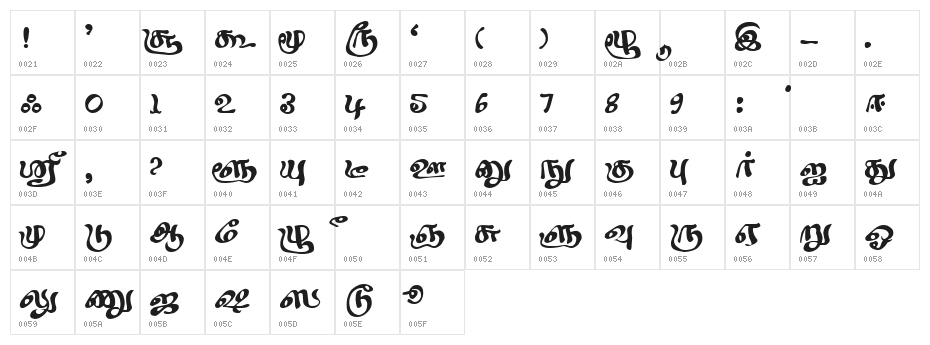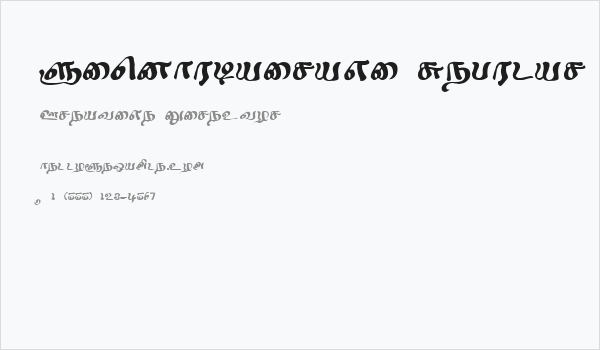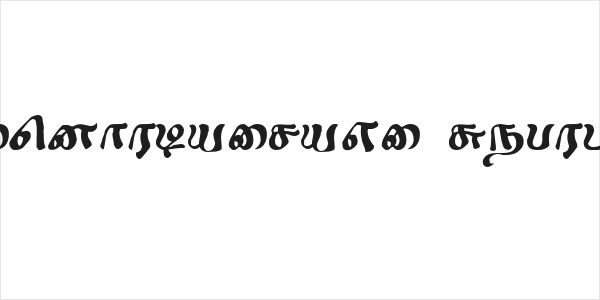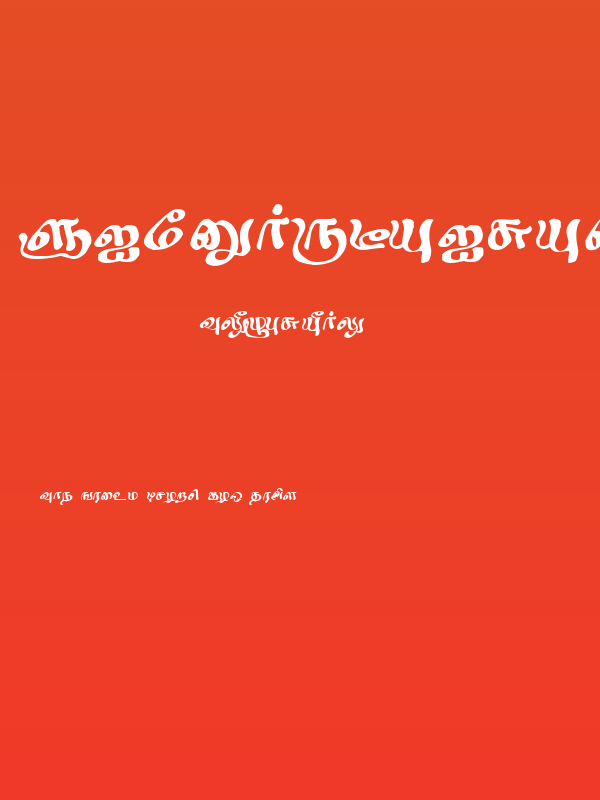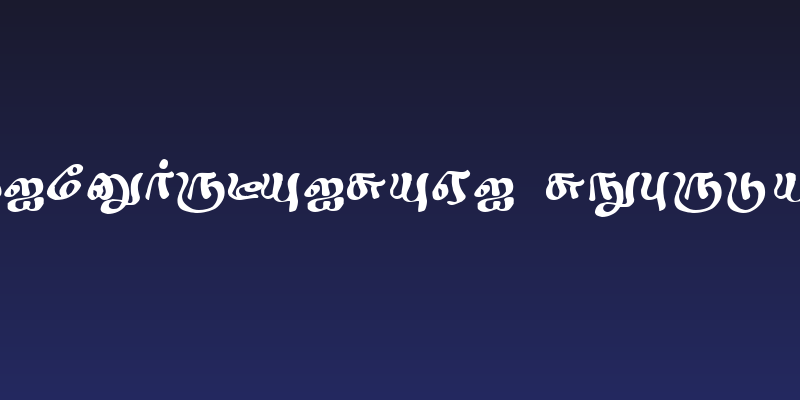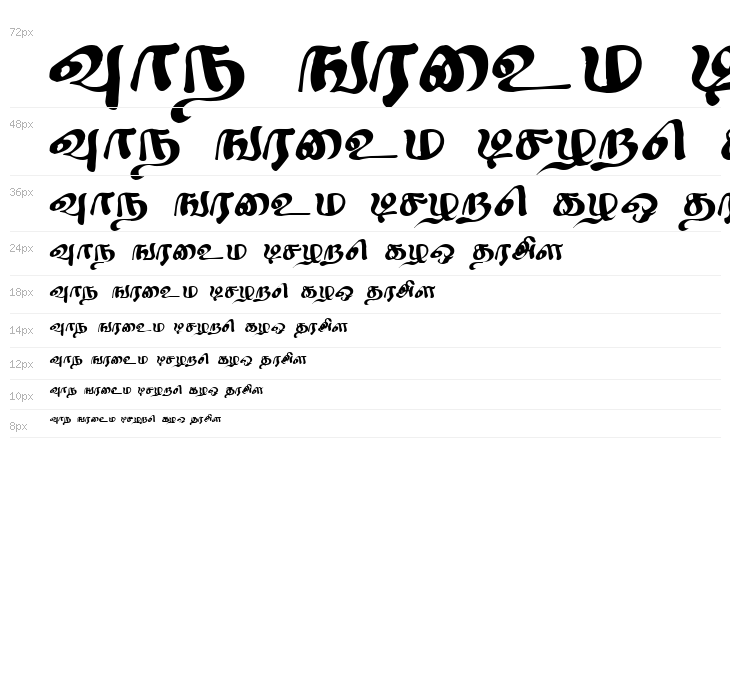
Sindhubairavi Regular Font
Sindhubairavi Regular Description
This font features a unique and artistic design, characterized by its flowing and ornate letterforms. The script-like appearance gives it a traditional and cultural feel, with each character exhibiting intricate curves and flourishes. The font maintains a consistent stroke width, providing a harmonious and balanced look. Its decorative style is reminiscent of calligraphy, making it suitable for projects that require a touch of elegance and sophistication. The numerals and special characters are designed to complement the overall aesthetic, ensuring a cohesive appearance across all text elements.
| Use Case | Headlines, Artistic projects, Invitations |
| Proposed Projects | Ideal for invitations, cultural event posters, artistic projects, and decorative headings. |